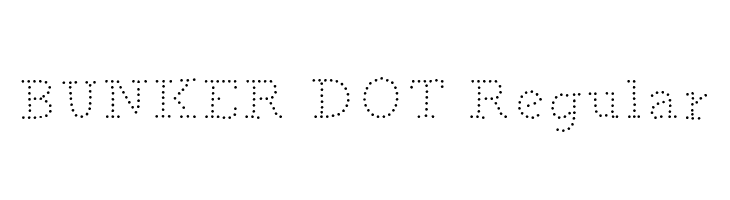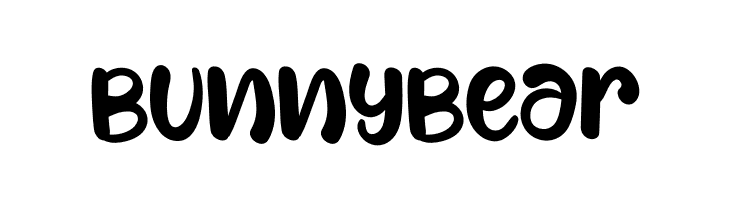
( Fonts by Alit Design )
A modern dotted font with evenly spaced dots forming each character.
( Fonts by Alit Design )
A bold, robust font with thick strokes and a strong presence.
( Fonts by FatmaStudio )
A bold, playful handwritten font with smooth, rounded edges.
( Fonts by Erik Studio )
A playful, bold font with rounded, bubbly characters perfect for whimsical designs.
( Fonts by Hanoded )
A playful, bold font with rounded characters and whimsical bunny-themed glyphs.
( Fonts by Gilar Studio )
A playful, outlined font with a hand-drawn, cartoonish style.
( Fonts by Gilar Studio )
A playful, bold font with rounded, whimsical characters.
( Fonts by Gilar Studio )
A playful, bold font with a shadow effect, ideal for creative projects.
( Fonts by Nur Solikh )
A playful, bold, and rounded font with a whimsical style.
( Fonts by Attype Studio )
A playful, hand-drawn font with rounded, bubbly characters.